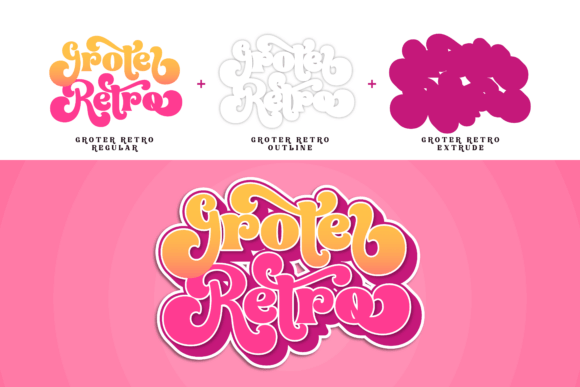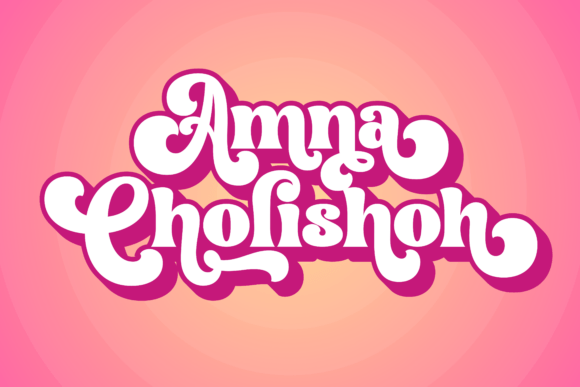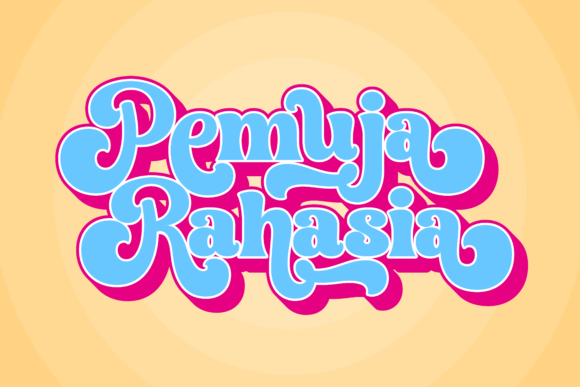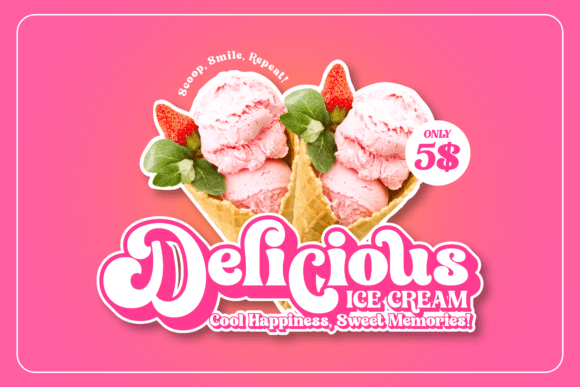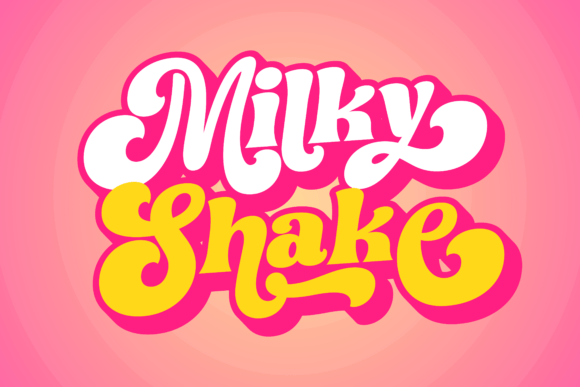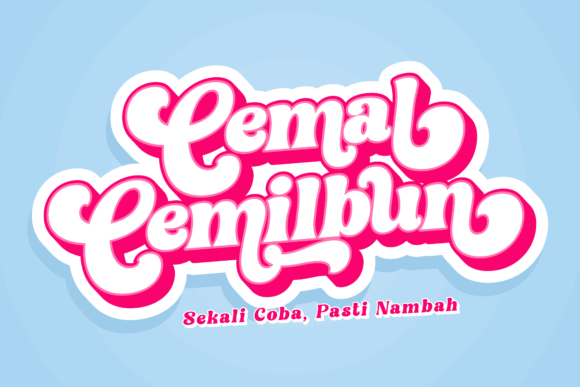
Introducing Groter Retro: A Bold and Playful Script Font
Are you looking for a font that can add a touch of nostalgia and fun to your designs? Look no further than Groter Retro, a bold, retro-style script font that’s perfect for creating eye-catching vintage posters, music themes, or standout titles. Inspired by the design of the 1970s, Groter Retro features exaggerated swashes and a dynamic personality that’s sure to grab attention.
What Makes Groter Retro Special?
Groter Retro is more than just a font – it’s a design experience. With its playful, bubbly letterforms and smooth, flowing curves, this font is sure to bring a smile to your face. But what really sets it apart is its unique three-layer system. This innovative design allows you to create complex, customizable designs with strong visual appeal.
The Three-Layer System
The three-layer system of Groter Retro consists of:
- Regular Layer: A vibrant, bold layer that’s perfect for creating eye-catching designs. This layer features the main font style with exaggerated swashes and playful letterforms.
- Outline Layer: A clean white outline layer that provides contrast and adds depth to your designs. This layer is perfect for creating a subtle, yet sophisticated look.
- Extrude Layer: A bold, 3D shadow effect layer that adds a new level of dimension to your designs. This layer is perfect for creating a dramatic, attention-grabbing effect.
With Groter Retro, the design possibilities are endless. Here are just a few ideas to get you started:
- Vintage Posters: Create eye-catching posters that evoke the nostalgia of the 1970s. Perfect for advertising, promoting events, or simply adding a touch of retro flair to your designs.
- Music Themes: Add a touch of music-inspired flair to your designs with Groter Retro. Perfect for album covers, music posters, or social media graphics.
- Standout Titles: Create bold, attention-grabbing titles that demand attention. Perfect for headings, subheadings, or any other design element that needs to stand out.
Why Choose Groter Retro?
So why choose Groter Retro over other fonts? Here are just a few reasons:
- Unique Design: Groter Retro features a unique, retro-style design that’s sure to grab attention.
- Customizable: With its three-layer system, Groter Retro allows you to create complex, customizable designs with ease.
- Versatile: Perfect for a wide range of design applications, from vintage posters to music themes and standout titles.
Tips and Tricks for Using Groter Retro
Here are a few tips and tricks for getting the most out of Groter Retro:
- Experiment with Layer Combinations: Don’t be afraid to experiment with different layer combinations to create unique, eye-catching designs.
- Play with Color: Groter Retro looks great in a wide range of colors. Experiment with different color schemes to find the perfect look for your design.
- Add Texture and Patterns: Add texture and patterns to your designs to give them an extra layer of depth and interest.
Groter Retro is a bold, playful script font that’s perfect for designers and crafters looking to add a touch of nostalgia and fun to their designs. With its unique three-layer system, customizable design, and versatile applications, Groter Retro is sure to become a go-to font in your design arsenal. So why wait? Download Groter Retro today and start creating eye-catching, retro-style designs that demand attention!